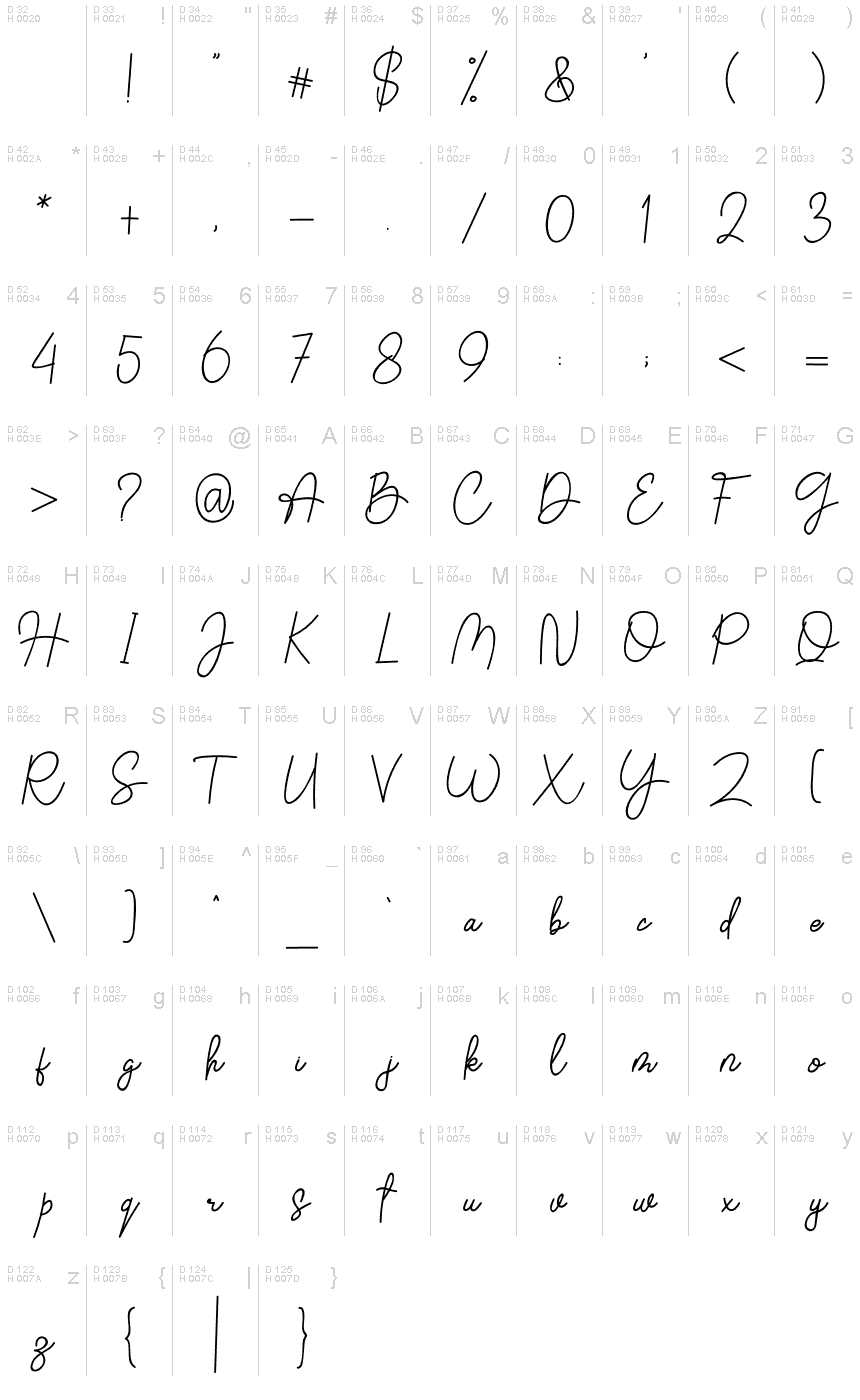
Holiday
Holiday, designed by Etik Fatimah, is a charming handwritten font that brings a touch of warmth and whimsy to any project.
With its extra-light weight, this font exudes elegance and grace, making it perfect for wedding invitations, love letters, and romantic branding projects. Its flowing strokes and playful curves also make it well-suited for children's books or playful packaging designs.
Holiday adds a delightful personal touch to any project, inviting readers to embrace the beauty of handwriting in the digital age.